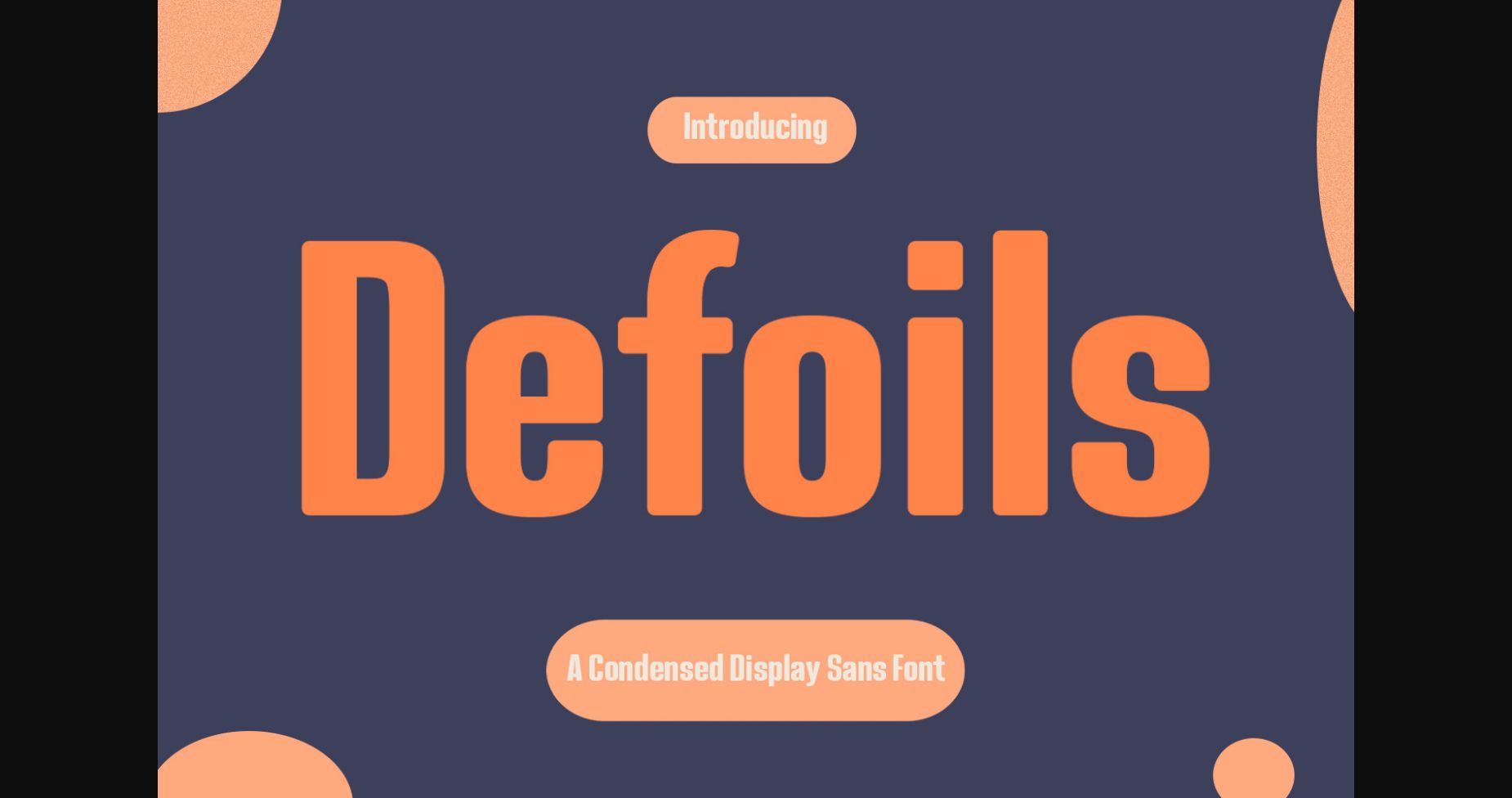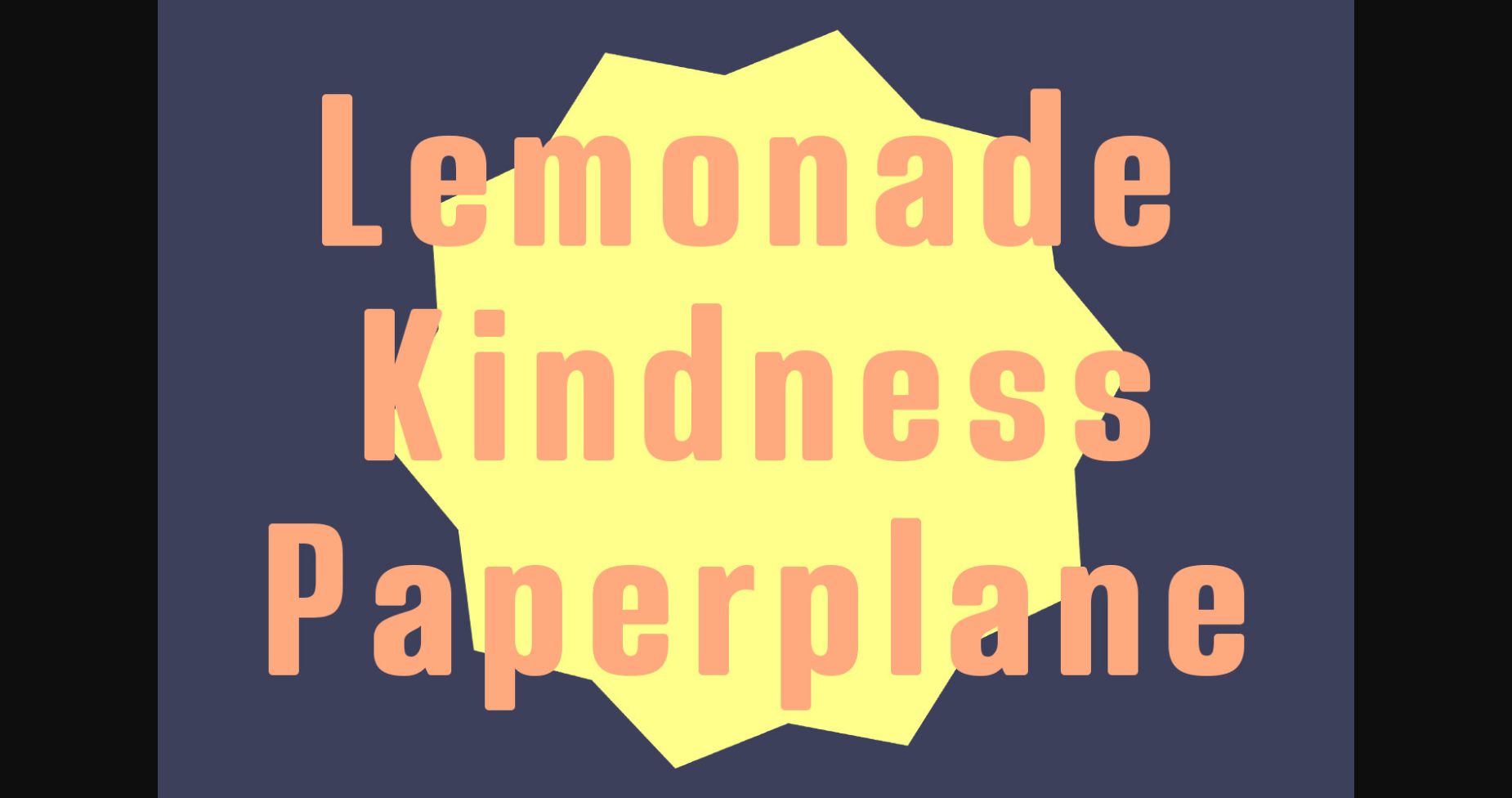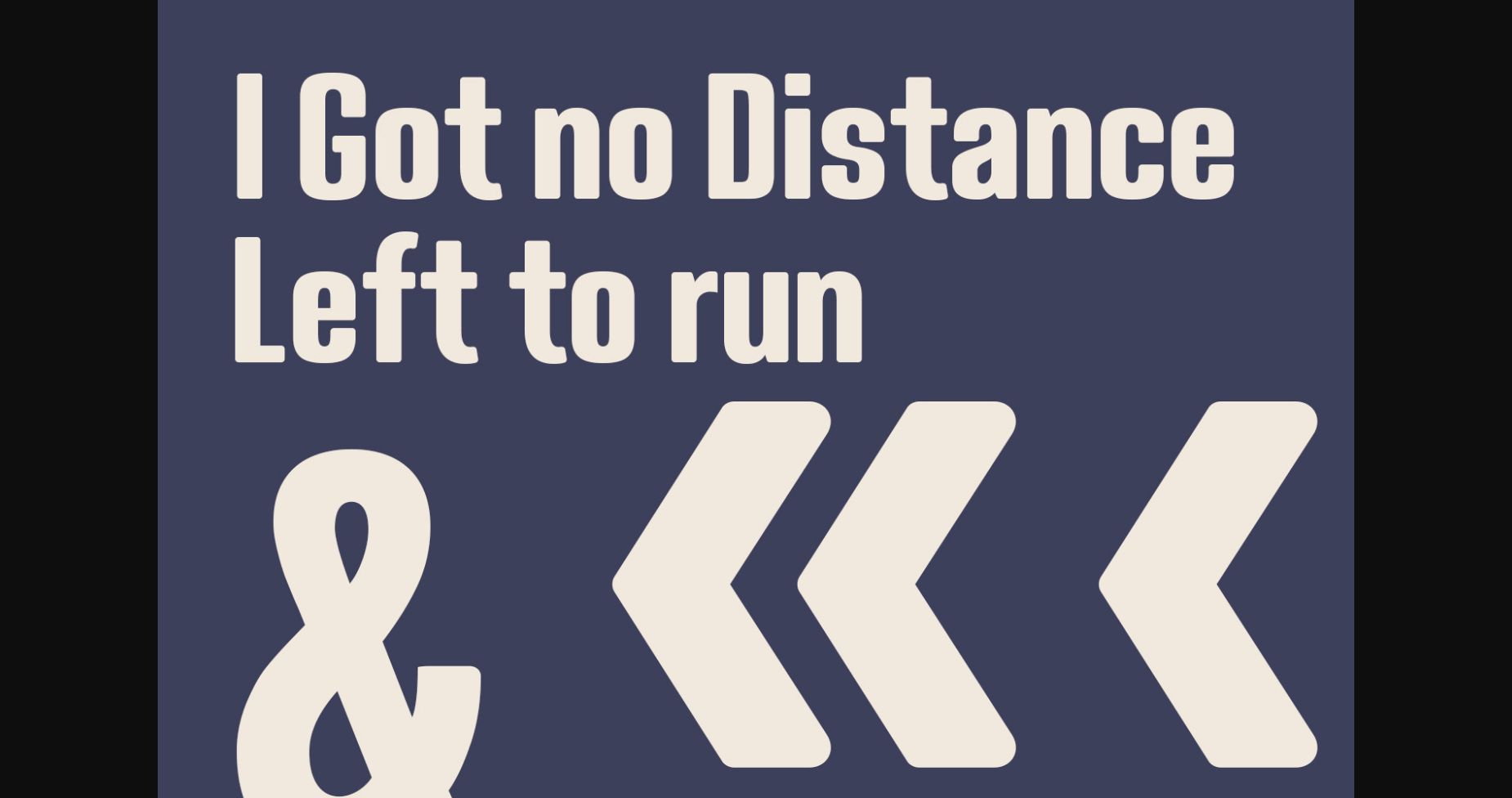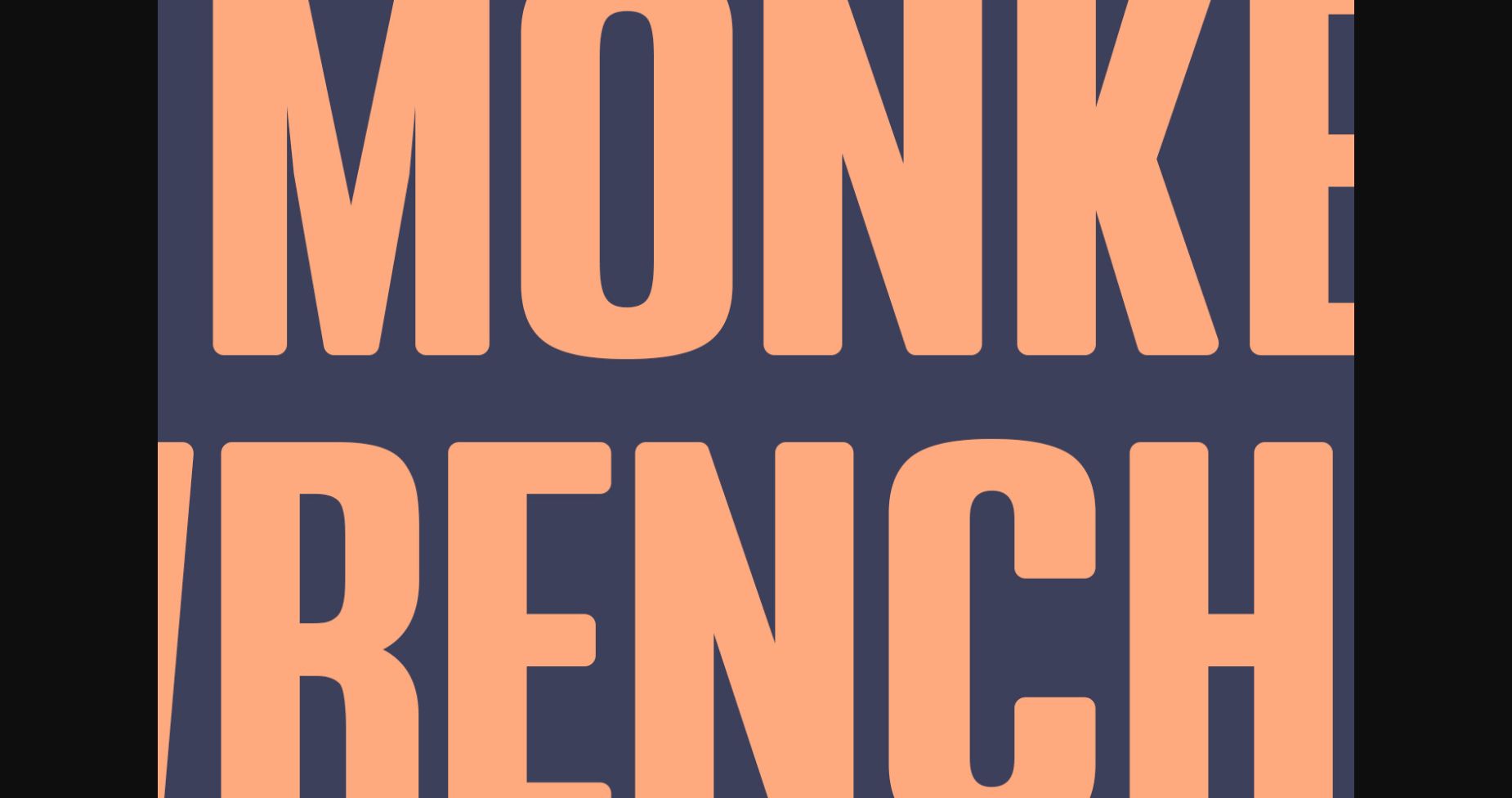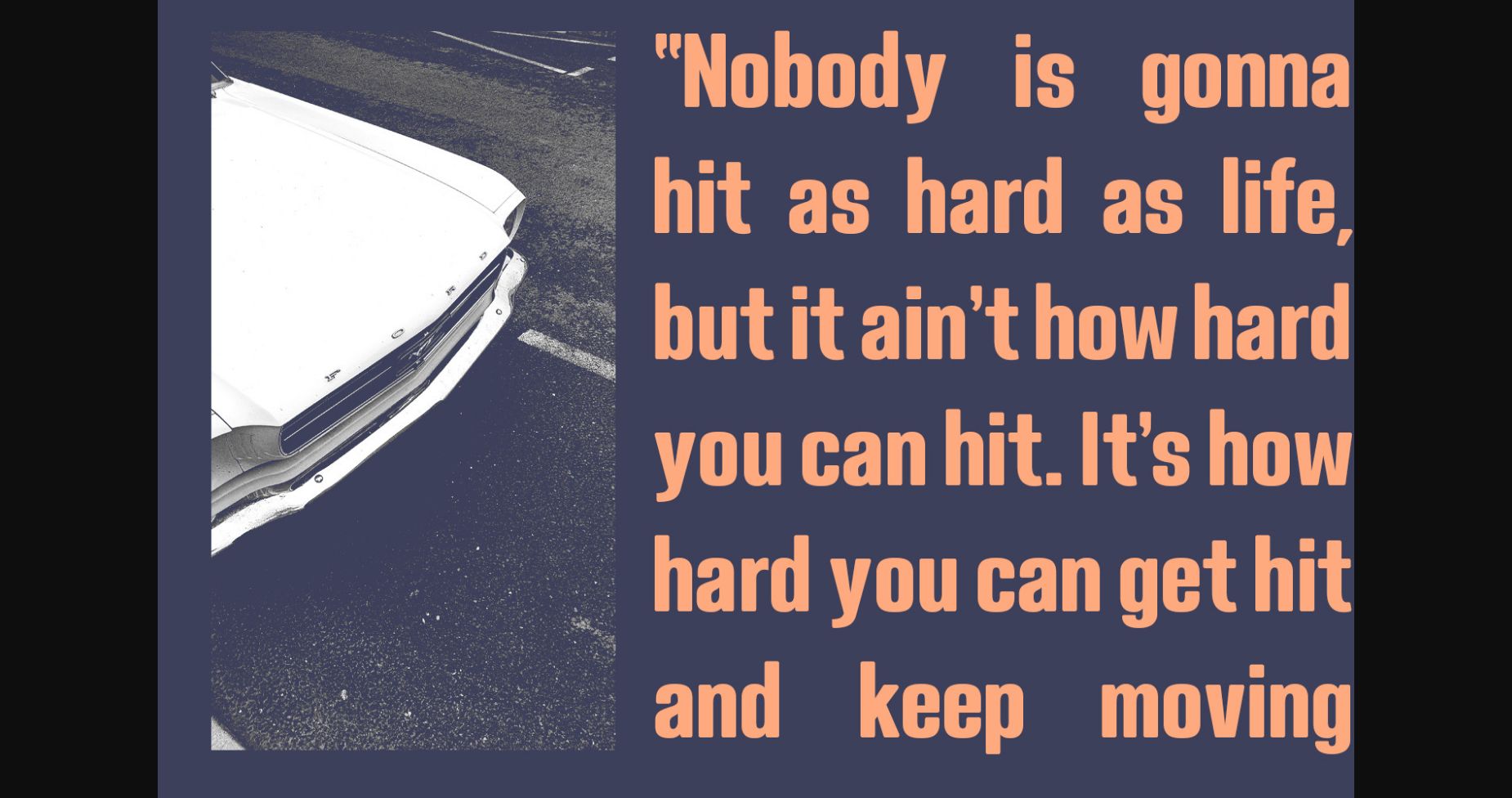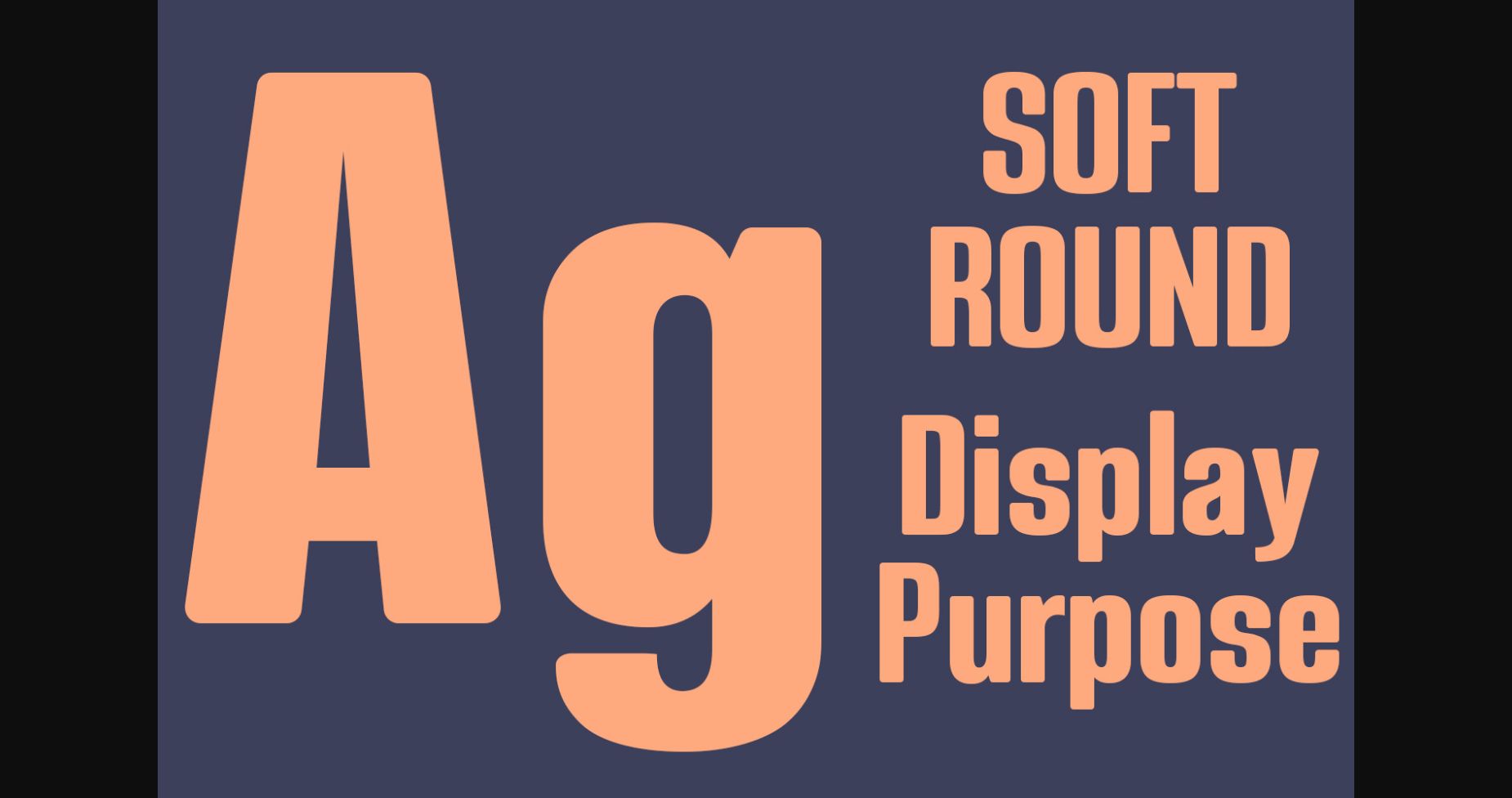
Defoils Font
About Defoils Font
Defoils is a classic and neat sans serif font. No matter the topic, this font will be an incredible asset to your fonts’ library, as it has the potential to elevate any creation.